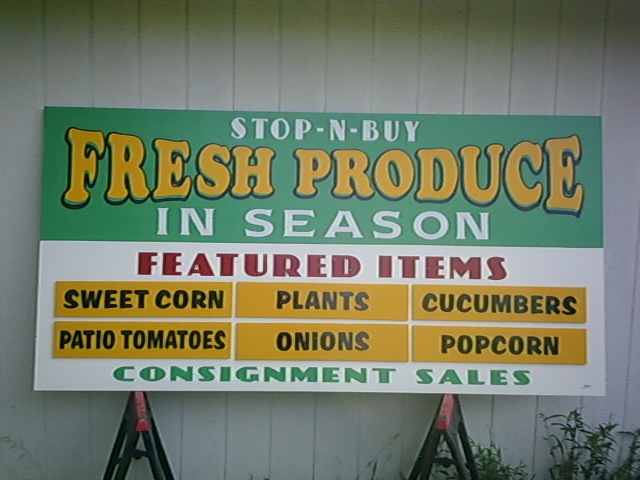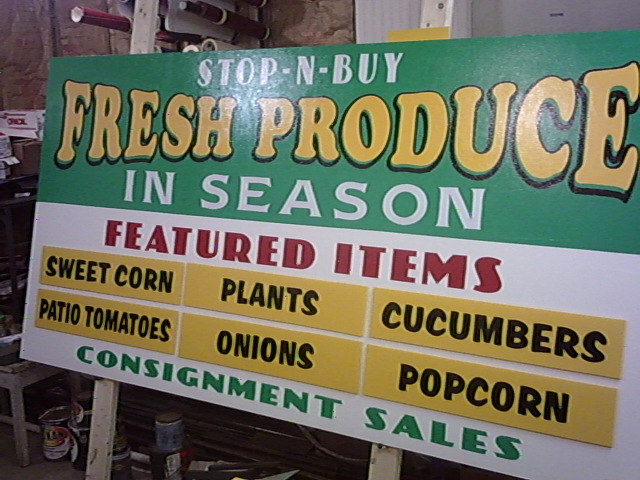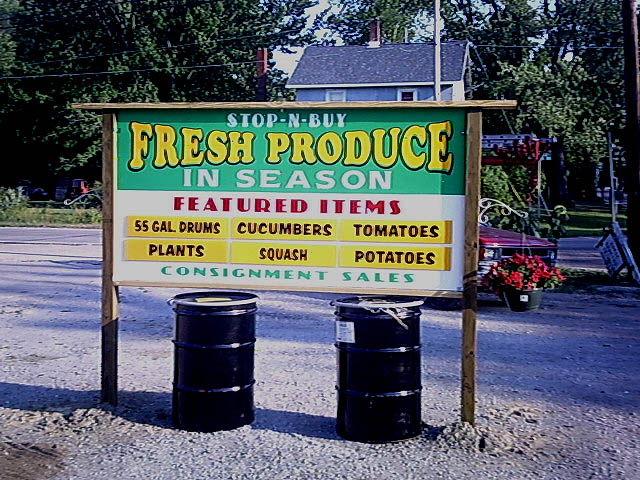
A little road side stand
I finished this up the other day. Double sided MOD hand lettered. The green was cut in and the colors laid in. The panels (coro and vinyl) are attached with Velcro... as it's run by a nice fella that is wheelchair bound and has limited use of his arms and hands. When I first seen Billy... he was fighting with old flex letters on a nasty looking A frame that was not inviting at all. We talked and when I came back I set this between two poles at a height that allow him to wheel up to and work the panels. A faint box outline aid in alignment. After it was installed and Billy hung the panels he wanted... he had a big smile on his face and claimed that was the slickest idea and could I drag the old A frame out back. No gold leaf... just a bread and butter job that ended with another happy customer
Re: A little road side stand
It is always nice to see a pro take a panel with too much copy (by neccessity) and make it work. Getting the client where he's in a better position than would otherwise be with a lesser layout man. KUDOS to a sign-man in Realville.
Re: A little road side stand
Things seemed to be a little slow so I'll add a little follow up. Here it is after it had been installed for a while. Billy said it was a big help in getting folks to stop.